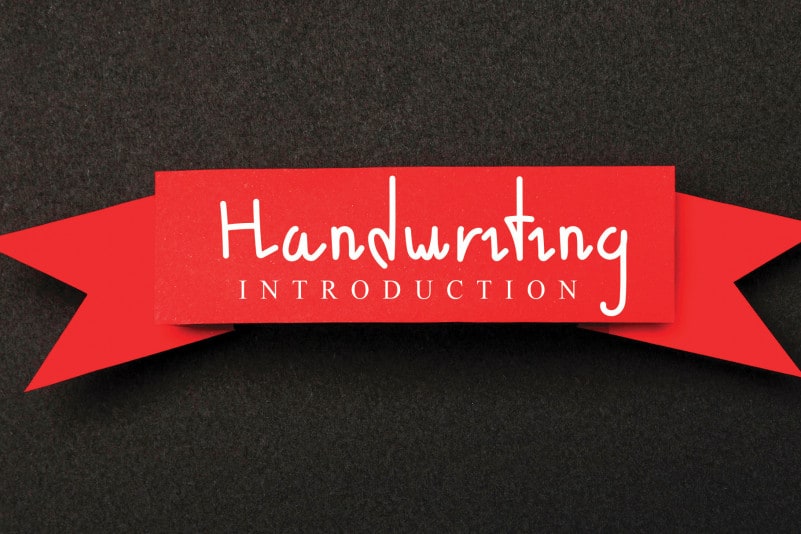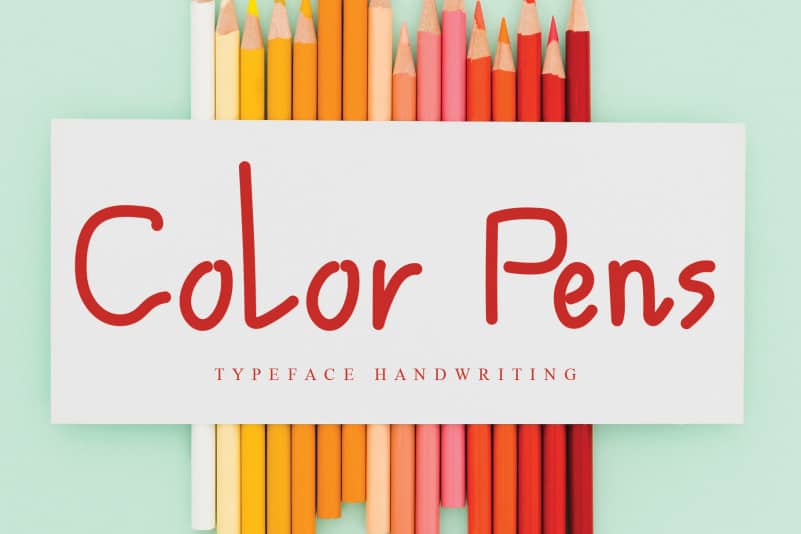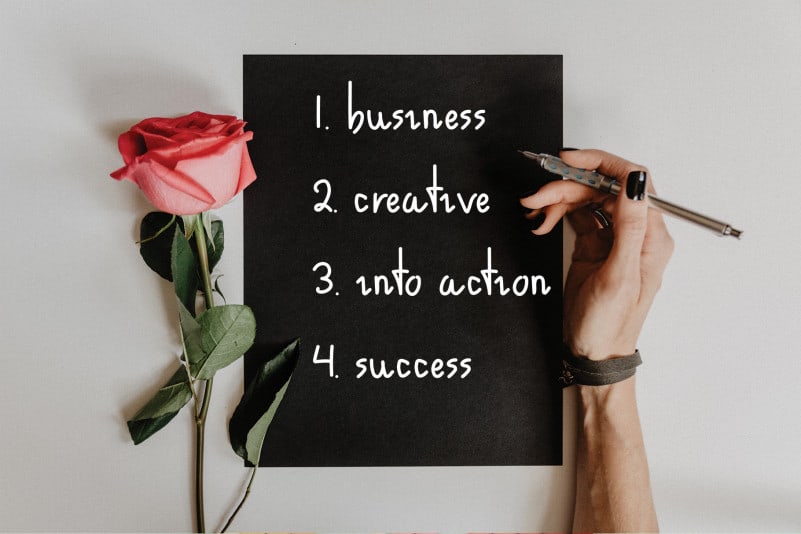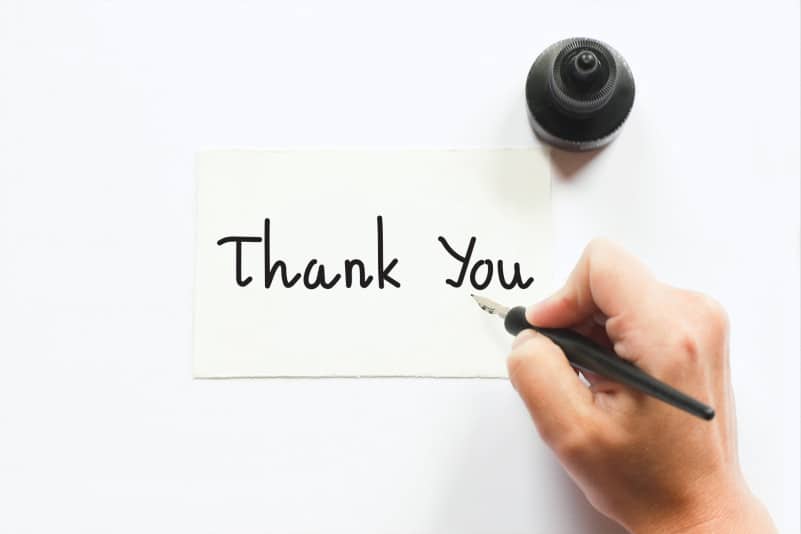
Heliconia Handwritten Font
Heliconia Handwritten Font is a friendly handwritten font. It is perfect for wall displays, wedding invitations, social media post logos, advertisements, product packaging, product designs, labels, photography, watermarks, invitations, stationery, and more.